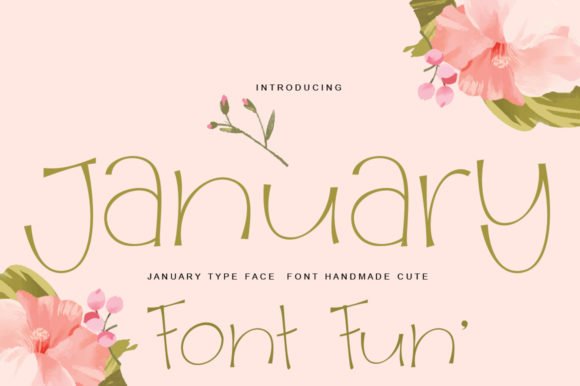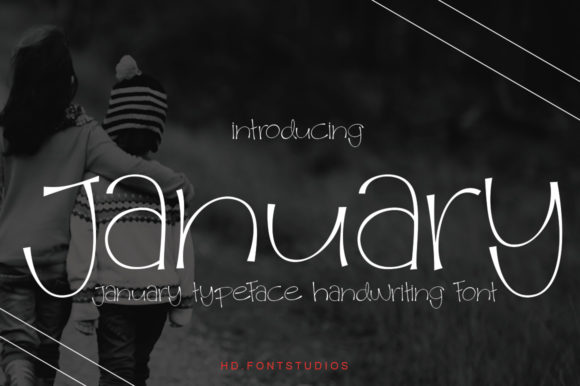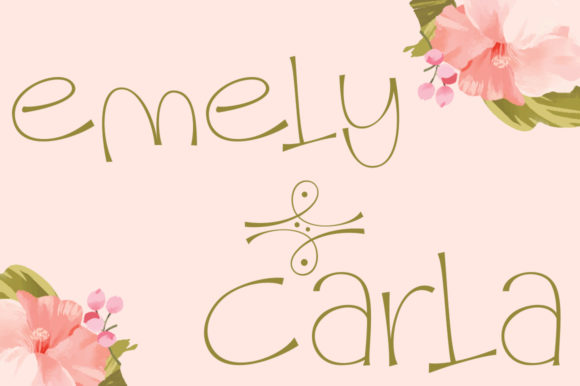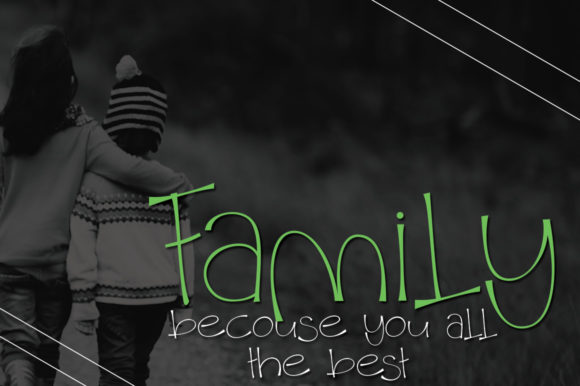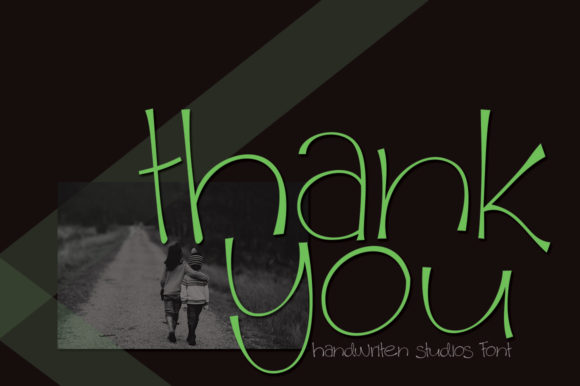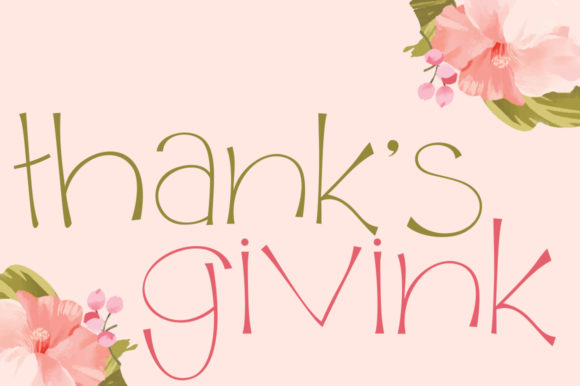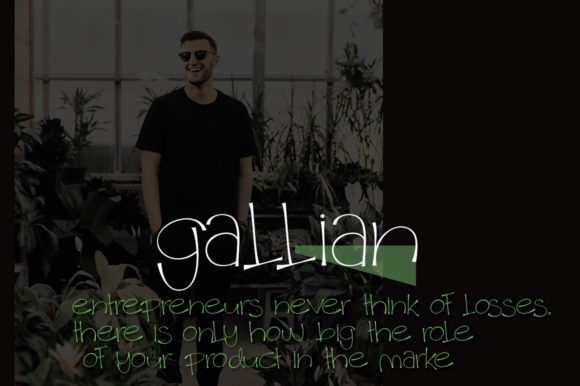
Discover the Delicate Charm of January Font
Enter January Font, a delightful script font that exudes a sense of playfulness and whimsy. Designed to add a touch of sweetness to your designs, January Font is perfect for creating invitations, social media graphics, and other digital content that requires a delicate, handmade feel. Whether you’re a seasoned designer or a beginner, January Font is a valuable addition to your typography toolkit.
- Font Family: January Font is a modern sans-serif font, designed to be highly legible and versatile.
- Character Set: The font includes a comprehensive character set, covering Latin, Cyrillic, and Greek alphabets, as well as a range of punctuation marks and symbols.
- Unique Characteristics: January Font features a unique blend of geometric and organic elements, resulting in a distinctive and modern aesthetic that sets it apart from other sans-serif fonts.
Designer Review: January Font
Overall, I’d say the January font has some great qualities, but also some areas that could use improvement. Let’s dive in!
- The January font has a clean and modern aesthetic, making it perfect for various design projects. It’s especially great for minimalist designs.
- The font’s x-height is well-balanced, making it easy to read, even at smaller font sizes.
- The font family includes a range of weights, from light to bold, which provides flexibility for different design applications.
- One of the main limitations is the font’s lack of unique character. It’s a very safe, generic choice that doesn’t stand out in a crowded design landscape.
- The font doesn’t have a distinct personality or feel, which can make it difficult to use effectively in designs that require a strong visual identity.
- The font family is not as extensive as some other popular fonts, which can limit its usability in certain design scenarios.
Overall, the January font is a solid choice for designers who want a clean, modern font that won’t overpower their design. However, it’s not a particularly exciting or memorable choice, and it may not be the best fit for designs that require a strong visual identity.
January Font is ideal for creating eye-catching headlines and titles in Canva.
January Font is perfect for creating professional-looking typography in Adobe Photoshop and Illustrator.
January Font is ideal for creating engaging presentations and documents in PowerPoint and Word.
January Font is suitable for various design projects, including:
- Marketing materials, such as brochures and flyers
- Editorial design, such as magazines and newspapers
- Presentations and documents